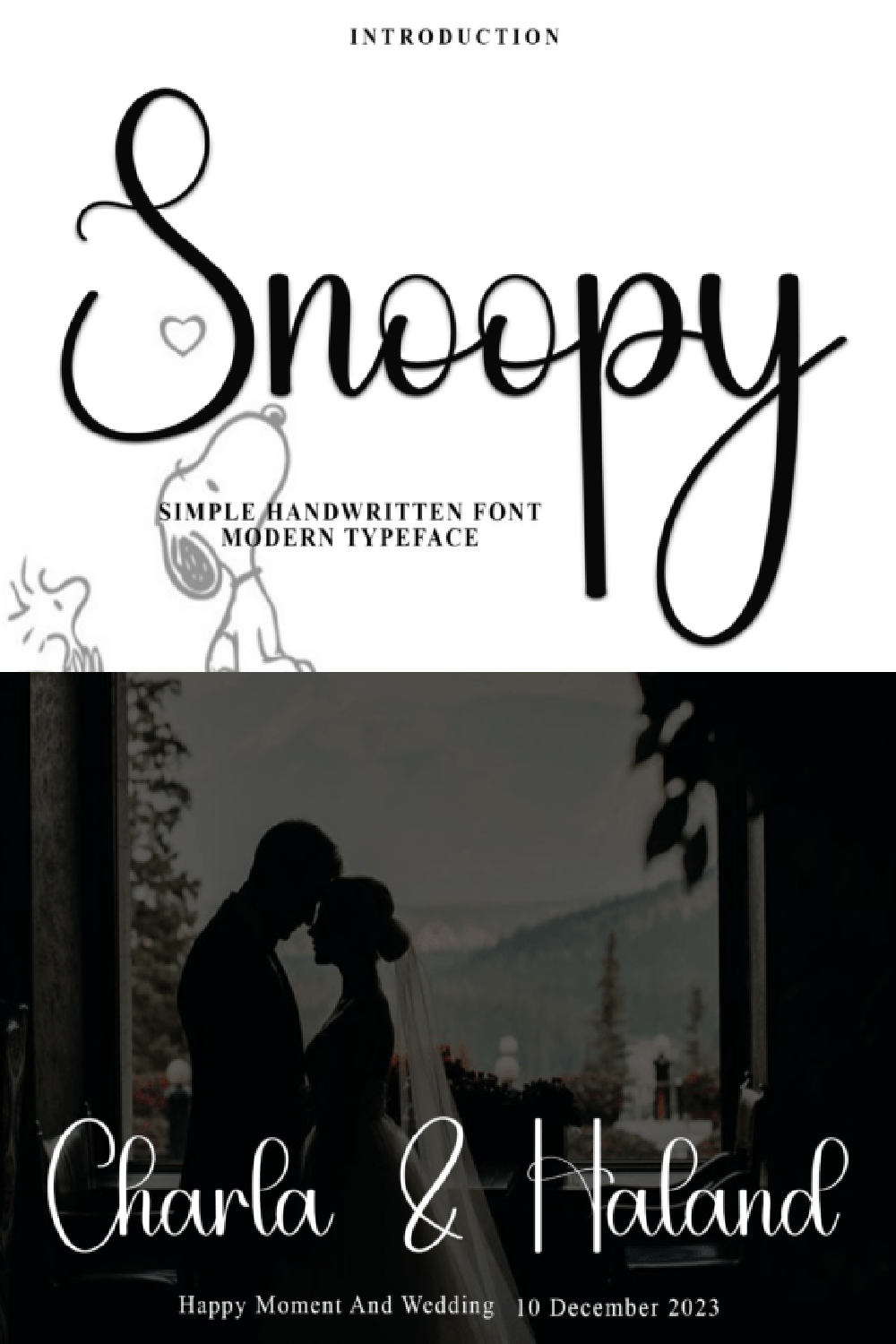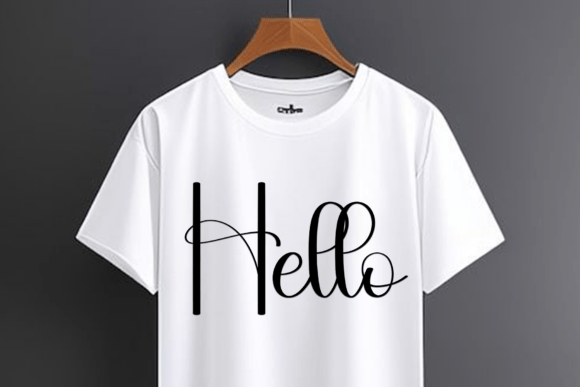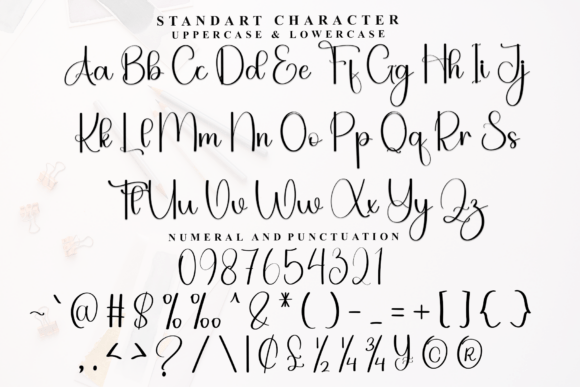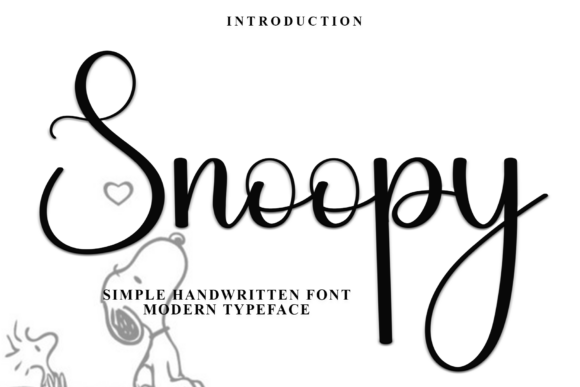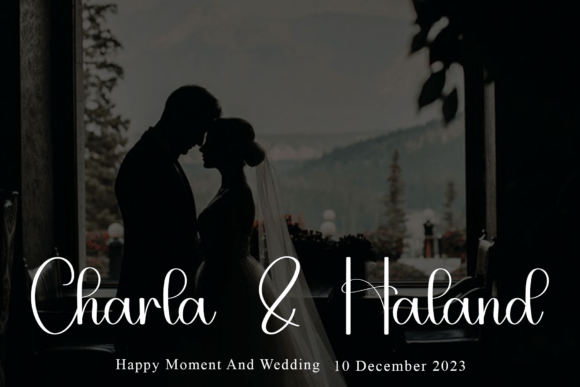
Snoopy Font: A Sweet & Playful Script for Wedding Invitations
About the Snoopy Font
Elevate your designs with Snoopy Font, a font that combines sophistication with readability. Snoopy is a casual and creative font that exudes warmth and friendliness. Its round, playful strokes create a relaxed and approachable feel, perfect for personal projects, invitations, and social media graphics. The font’s charming, hand-drawn aesthetic adds a fun and unique touch to any design.